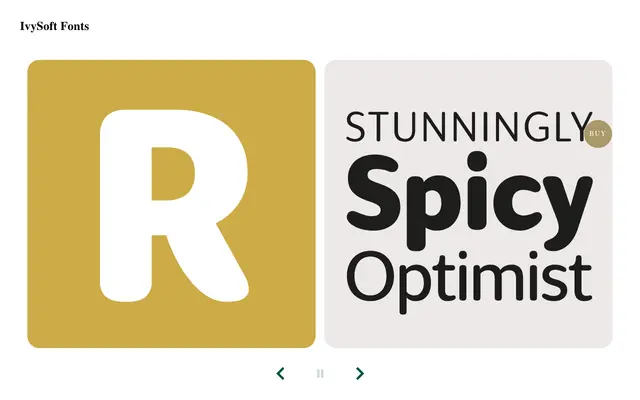
A rounded sans-serif sharing structural roots with IvyEpic, offering a warmer, more relaxed alternative across 16 styles and a variable font.
Built from the same skeletal foundations as IvyEpic, IvySoft adds rounded terminals, tapered tails and a touch of stroke contrast to produce a sans-serif that reads cleanly at text sizes while carrying an approachable warmth. The family spans eight weights from Thin to Black, each with a matching italic, and is also available as a variable font covering both weight and slant axes. The shared lineage with IvyEpic makes the two families a natural pairing for projects that need tonal range across a single typographic system.
IvySoft is a rounded sans-serif with tapered tails and rounded terminals, sharing skeletal DNA with IvyEpic but softened for a warmer, more relaxed register.